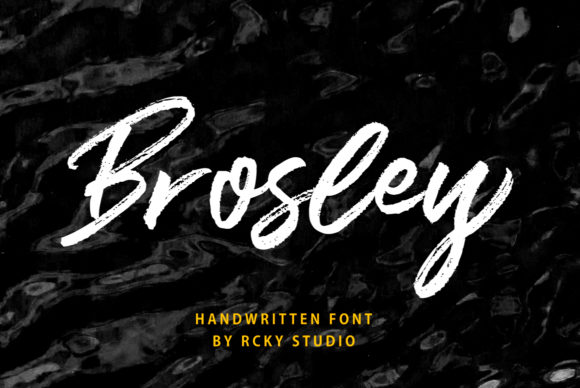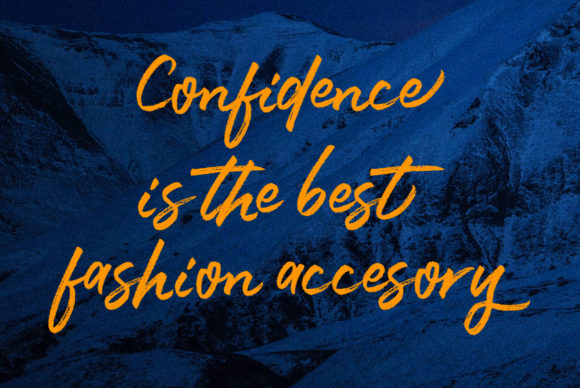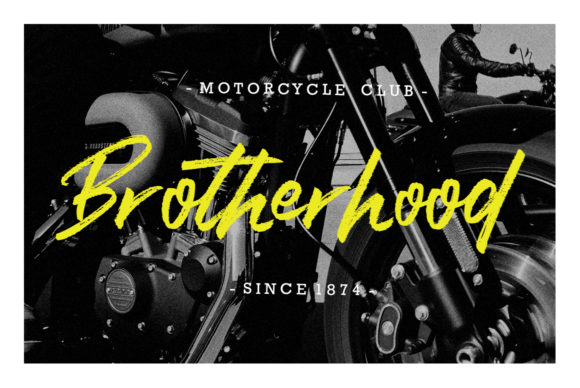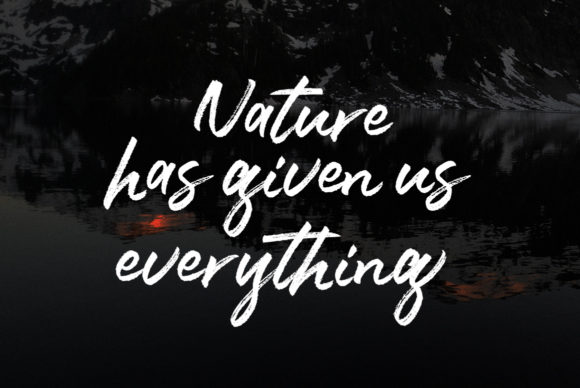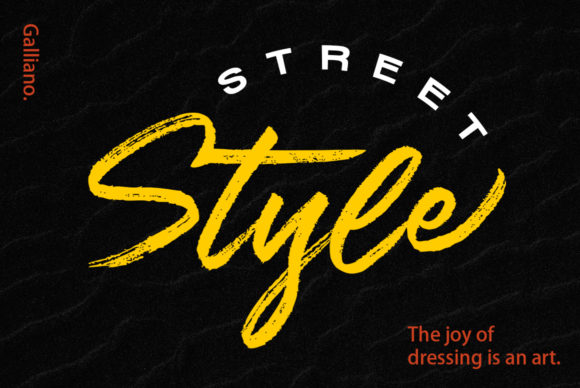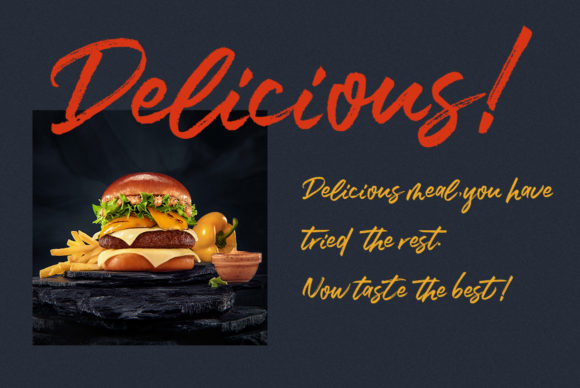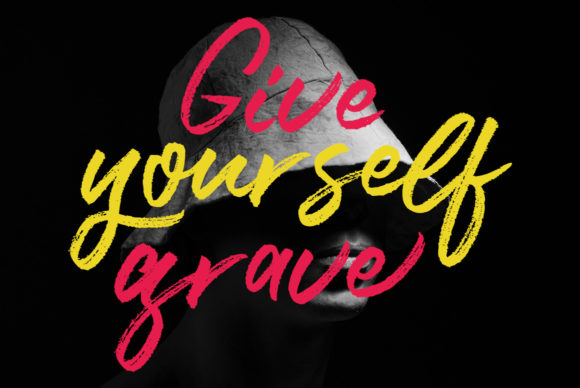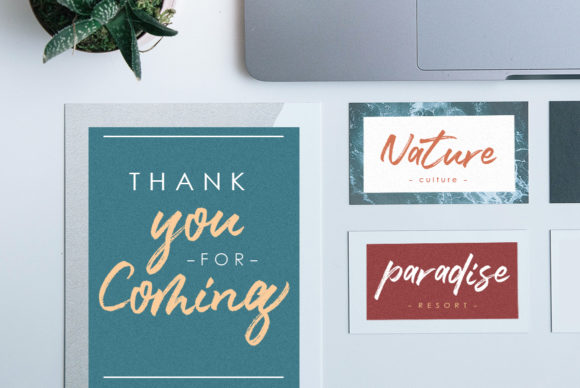
Brosley Font
About Brosley Font
Brosley is a beautifully handlettered script with a contemporart approach to design. Get inspired by its authentic look!